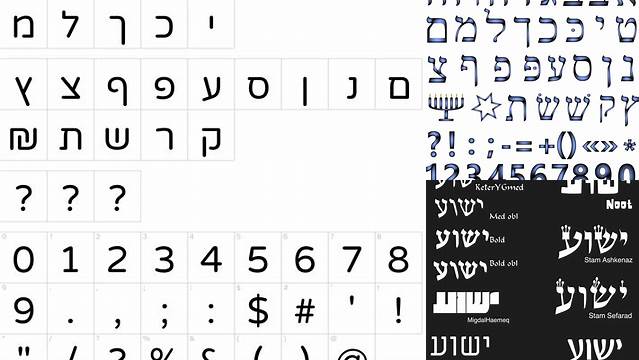
Hey guys! Are you looking to jazz up your projects with some Hebrew fonts? You're in the right place! This guide is all about the font Ibrani free download and everything you need to know to get started. We'll cover where to find these fonts, how to install them, and even some cool ways to use them. Get ready to dive into the world of Hebrew typography and make your designs pop!
What is Font Ibrani?
Okay, so first things first: what exactly is Font Ibrani? Font Ibrani, in essence, is a specific style of Hebrew font. It's designed to bring the beauty and complexity of the Hebrew alphabet to your digital projects. Think of it as the digital equivalent of a calligrapher's elegant hand, but ready to use with a click. It is a style, and it encompasses a variety of different designs and weights (like bold, italic, etc.). You'll find fonts that are classic and traditional, perfect for formal documents and religious texts. Then there are more modern fonts, which are ideal for creative projects, web design, and everything in between. So, whether you're working on a school project, designing a website for a Jewish organization, or just want to add a unique touch to your graphic design, font Ibrani free download can be your go-to solution. And with such a variety of options available, you're sure to find something that resonates with your specific needs and aesthetic preferences. It’s all about finding the right fit for your project, which will then make your work look amazing. If you're not familiar with Hebrew, it's a writing system with its own distinct characters, reading direction (right to left), and cultural significance. By using these fonts, you're not just adding text; you're embracing a rich history and tradition. So, whether you're a designer looking for new tools or a student researching the language, understanding font Ibrani free download is a great place to start.
In the world of typography, the style of the font really matters. The different fonts can influence how your audience perceives your work. For example, a traditional font might feel serious, while a modern font might feel more playful. Choosing the right Hebrew font can bring your projects to a new level and make them even more appealing. This helps to give off the right vibes, like an old scroll or a trendy cafe menu. The range of styles means that you can go from a very formal and traditional style to something that feels more modern. When you are looking at fonts, consider the purpose and the intended audience. The font must have the right look to make your project stand out, this is what makes font Ibrani so good. By choosing the correct font Ibrani free download, you're ensuring that your design will fit in well with the other visual elements, such as colors and images, to create a cohesive and compelling outcome.
Also, open-source platforms and online design communities are awesome resources. These platforms frequently host collections of free fonts made available by generous designers. You'll find an amazing variety of Hebrew fonts here, from classic to modern. Be sure to explore these sites and check out what they have to offer. You may find a font Ibrani free download that is perfect for your needs. Keep in mind that the quality of free fonts can vary. Take some time to check out the design of each font and make sure that it looks good. When you're looking for the right font, think about the project you're working on. You want to choose a font that fits the style. If you're making a formal document, then you might choose a font that has a more traditional style. If you're designing a website, you can pick a font that is modern and easy to read. Lastly, don't be afraid to experiment with different fonts. Try out a few fonts until you find the perfect one that works for your project. With a little bit of patience and these tips, you'll be able to find the perfect Hebrew fonts for your project.